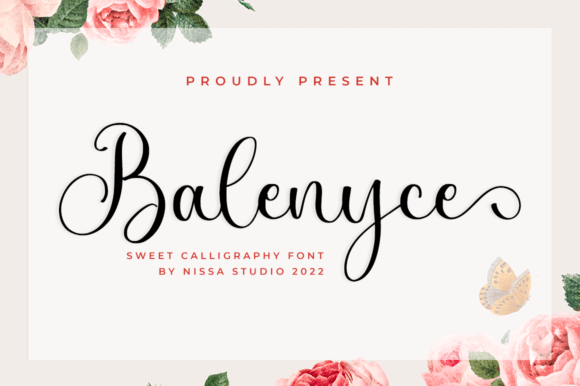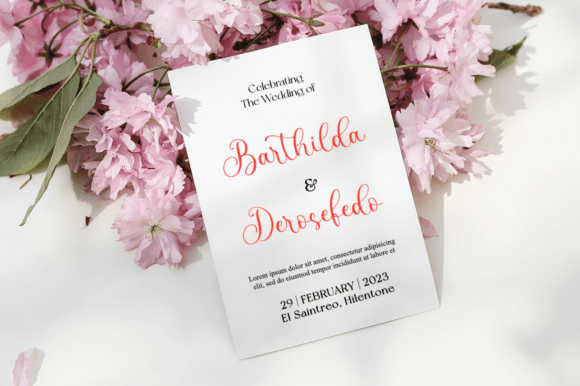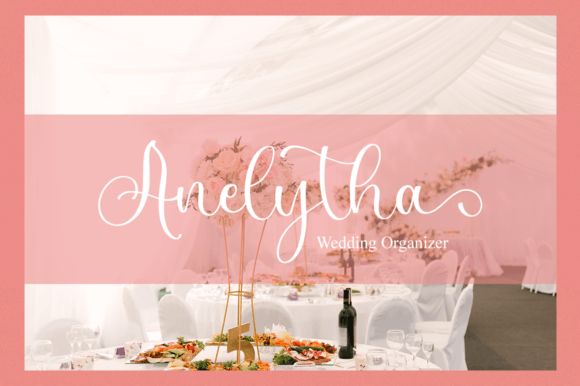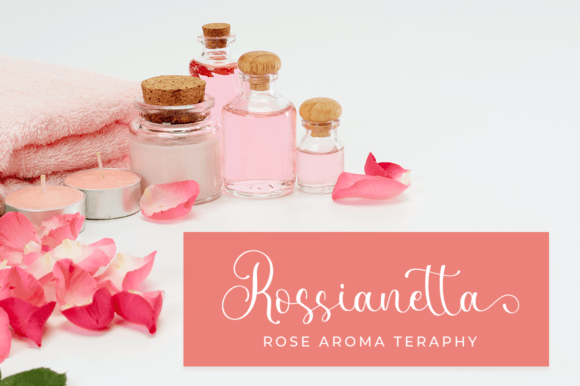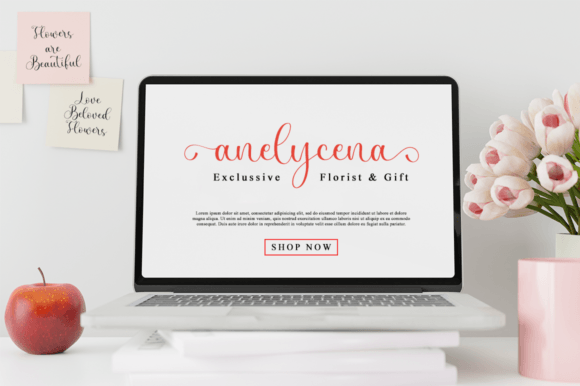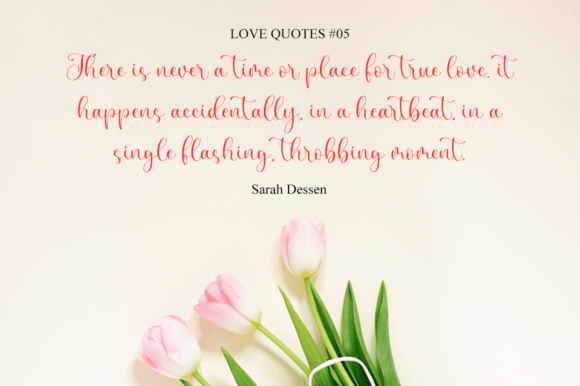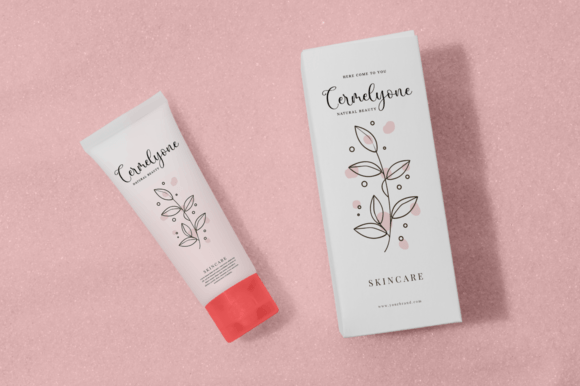
Discover the Elegance of Balenyce Font
Have you ever been stuck in a creative rut, staring at a blank page, and desperately searching for the perfect font to bring your design to life? That’s exactly where I was until I stumbled upon the lovely Balenyce Font. Its delicate script and elegant style have a way of captivating the senses and adding a touch of sophistication to any project.
Balenyce Font is a beautiful and refined script font, perfect for designers looking to add a fresh and refined look to their work. Whether you’re creating a wedding invitation, a branding package, or a digital product, this font is sure to impress. With its PUA encoding, you’ll have access to all the glyphs and swashes, giving you endless possibilities to customize your design.
- Unique Characteristics: The font features a unique blend of modern and traditional elements, making it suitable for both contemporary and classic designs.
Balenyce Font Review
I recently had the chance to work with the Balenyce font, and I must say it has some great qualities. ✨ The most impressive aspect of this font is its versatility. It’s perfect for creating a unique and eye-catching visual identity for a brand or project. The Balenyce font has a beautiful balance of elegance and playfulness, making it suitable for a wide range of applications.
- Unique aesthetic: The Balenyce font has a distinct and memorable look that sets it apart from other fonts.
- High legibility: The font is easy to read, even at smaller sizes, making it perfect for body text or headlines.
- Customizable: The Balenyce font offers a range of weights and styles, allowing designers to tailor the font to their specific needs.
- Limited language support: The Balenyce font may not support certain languages or character sets, which could be a problem for global brands or projects.
- Not ideal for small text: While the font is highly legible, it’s not the best choice for very small text sizes, where the details may get lost.
Overall, the Balenyce font is a solid choice for designers looking for a unique and versatile font. While it may have some limitations, its strengths make it a great addition to any design arsenal.
Use Balenyce Font for:
- Creating elegant and sophisticated designs.
- Adding a touch of luxury to your branding materials.
- Designing wedding invitations, event materials, and other high-end materials.
- Pair Balenyce Font with a simple, clean background to let the font shine.
- Use Balenyce Font in combination with other elegant fonts for a sophisticated look.
- Experiment with different font sizes and
Alternatives to Balenyce Font
Balenyce Font is a popular sans-serif font, but sometimes designers need alternatives to suit their specific needs. Here are a few options:
Oswald is a strong and modern sans-serif font that is often used for headings and titles. It is ideal for creating a bold and contemporary look. Oswald is similar to Balenyce Font in terms of its modern feel, but it has a slightly more geometric shape and a bolder weight.
Montserrat is a sans-serif font that is inspired by urban typography. It is highly legible and versatile, making it suitable for a wide range of designs. Montserrat is similar to Balenyce Font in terms of its modern feel, but it has a more humanist approach and a more subtle weight.
Open Sans is a clean and modern sans-serif font that is highly legible. It is ideal for body text and is often used for digital interfaces. Open Sans is similar to Balenyce Font in terms of its clean and modern feel, but it has a more neutral weight and a more rounded shape.